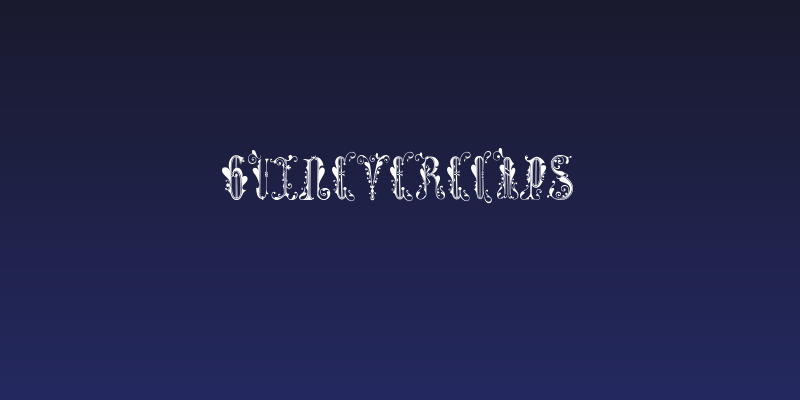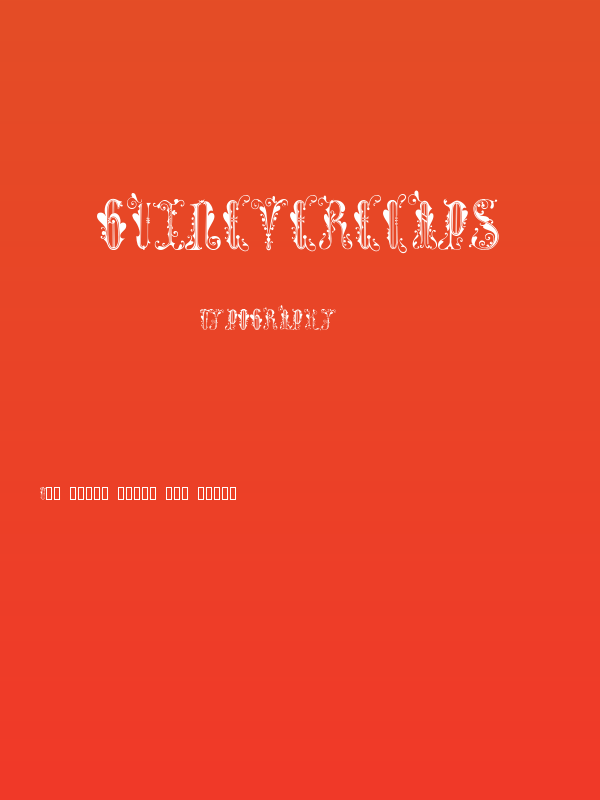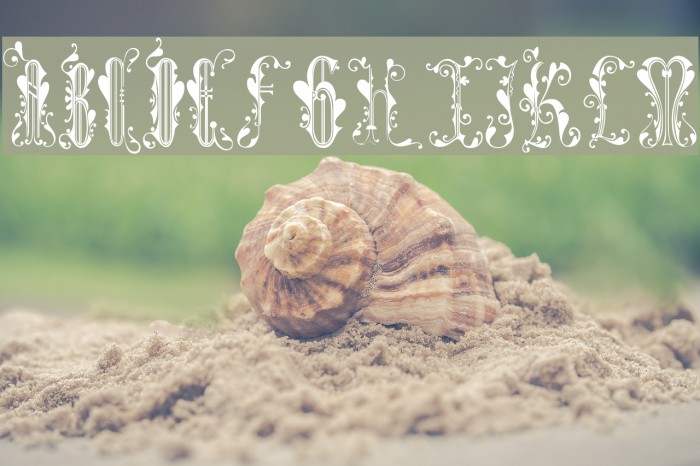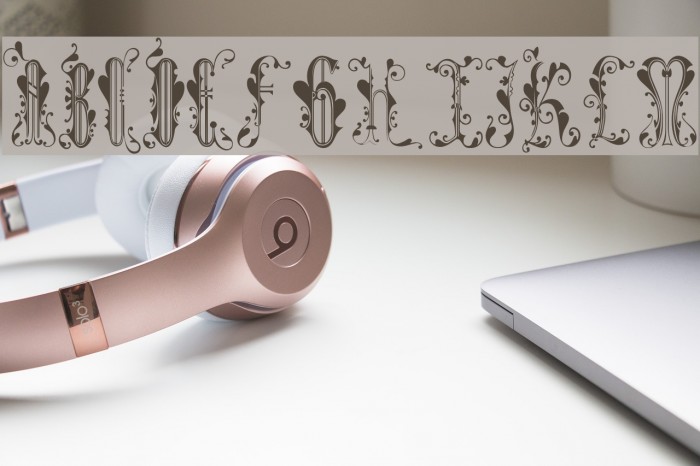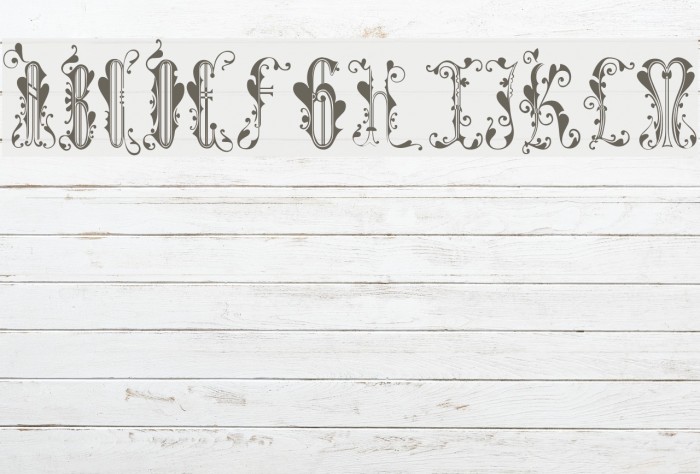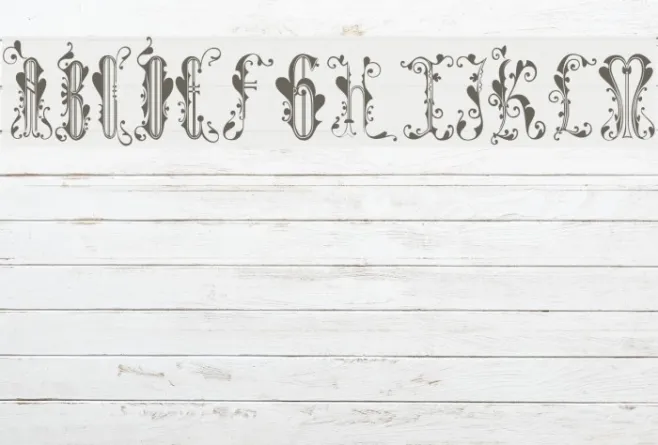
GuinevereCaps Font
GuinevereCaps Description
This font is an ornate and decorative typeface with intricate flourishes and embellishments. Each letter is crafted with elaborate details, featuring swirls and curls that give it a regal and sophisticated appearance. The uppercase letters are particularly elaborate, making them ideal for creating a dramatic and eye-catching effect. The font's design is reminiscent of historical or medieval scripts, with a touch of fantasy, making it suitable for projects that require a touch of elegance and grandeur.
| Overall Style | Vintage |
| Proposed Projects | Ideal for wedding invitations, fantasy book covers, historical themed events, and decorative signage. |